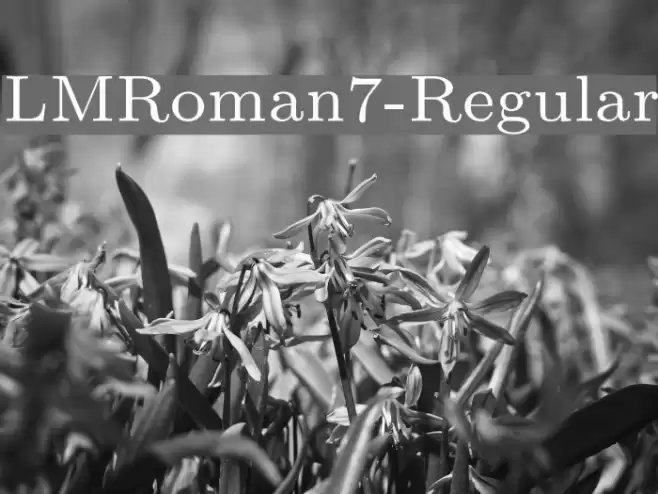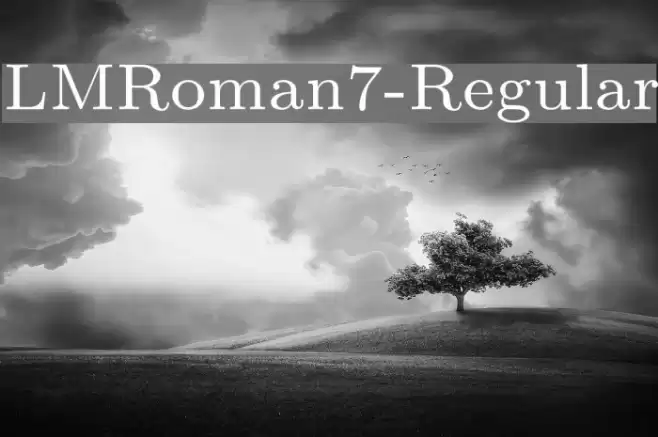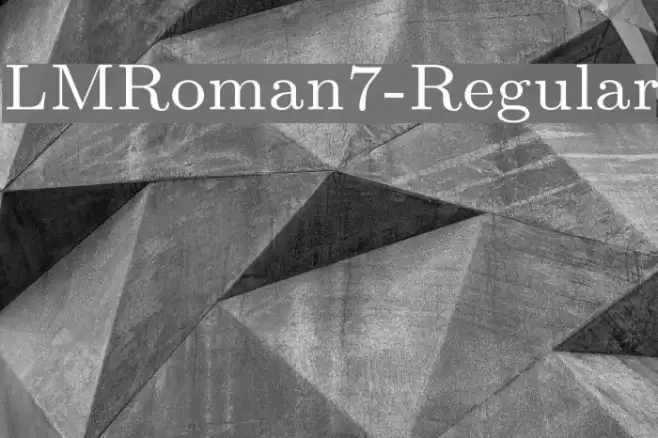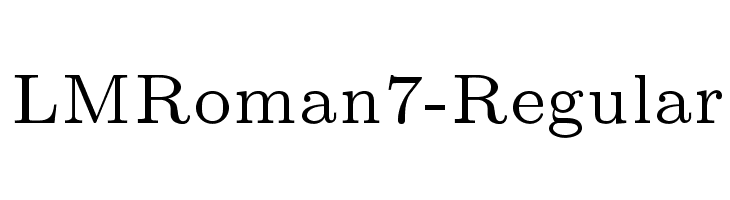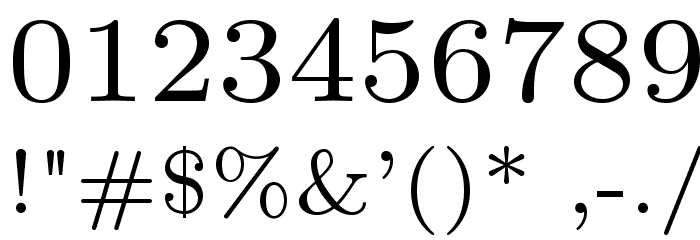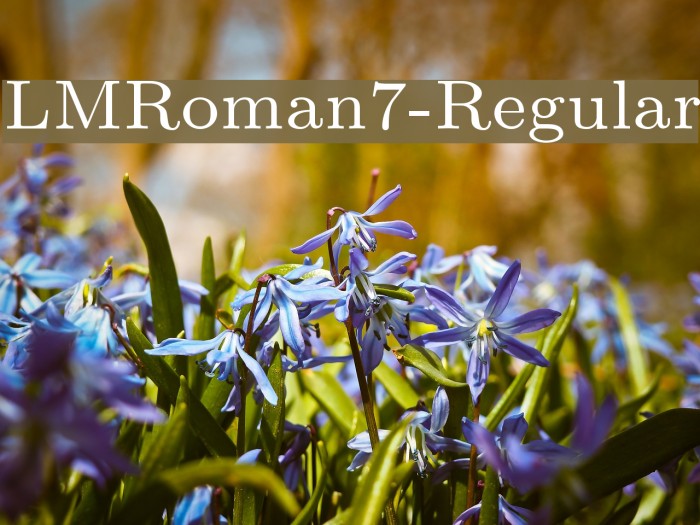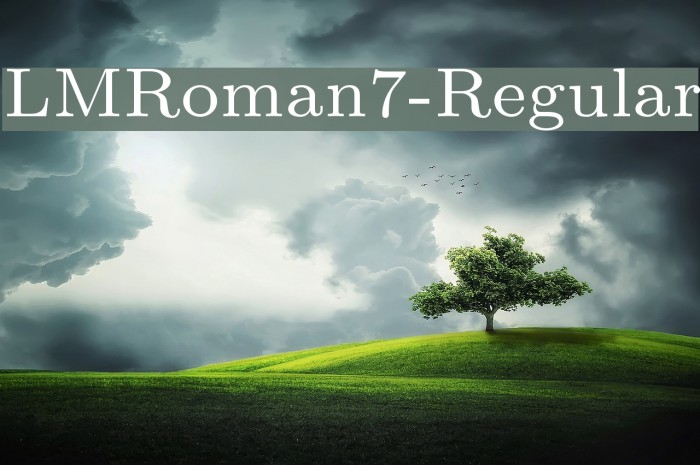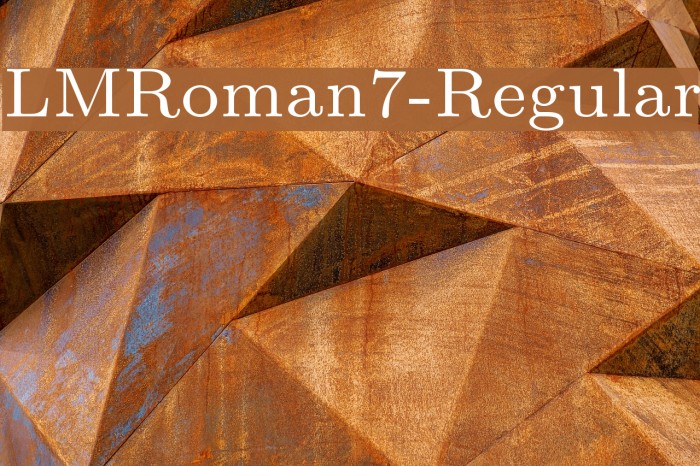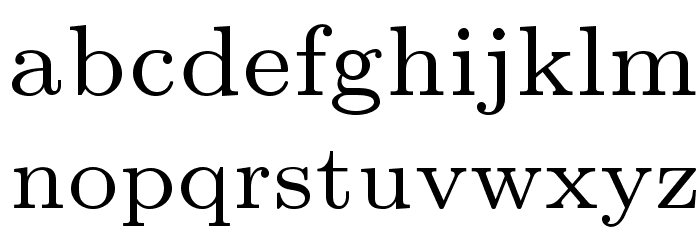
LMRoman7-Regular
This font exhibits a classic serif style with elegant and refined strokes. The characters are well-proportioned, featuring distinct serifs that add a touch of sophistication. The uppercase letters are bold and commanding, while the lowercase letters maintain a balanced and harmonious appearance. The numerals are clear and legible, making them suitable for a variety of applications. Special characters are thoughtfully designed, ensuring consistency across the entire typeface. This font's timeless appeal makes it versatile for both traditional and modern projects.
A classic serif font with elegant strokes and well-proportioned characters.
- Proposed Projects: Ideal for book typesetting, formal invitations, and editorial design.
- Category: Serif
- Overall Style: Classic
- Use Case: Body text, Editorial design, Formal documents